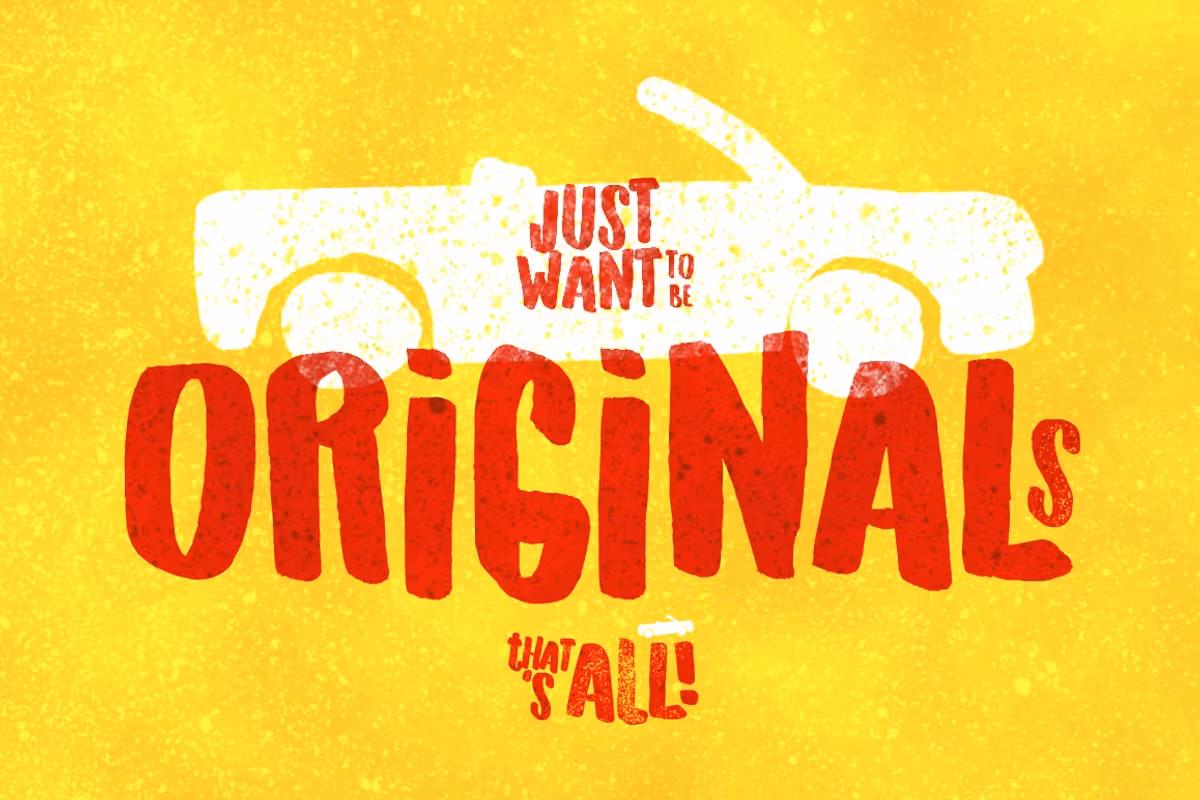
Originals Typeface Free Download
Originals Typeface Free Download is a hand-drawn, playful display font that adds a whimsical and personal touch to various design projects. With its unique character and informal style, Originals is perfect for signs, t-shirts, greeting cards, and designs aiming for a fresh, summer-themed aesthetic.
Designed by Leonard Posavec, Originals Typeface captures the charm of handcrafted lettering, making it ideal for projects that require a fun and approachable feel. Its versatility allows it to stand out in both print and digital mediums, offering designers a creative tool for engaging visuals.